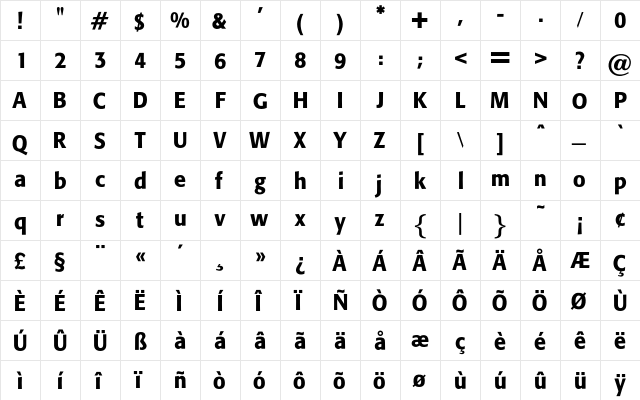
CartoonDemiBold Regular
Design Context for CartoonDemiBold Typeface
CartoonDemiBold trades formality for fun, with bouncy, characterful letterforms that bring warmth and energy to any project.
Font Pairing: Pairs well with a rounded or humanist sans for body copy, maintaining the friendly tone without relying on CartoonDemiBold to carry extended reading.
Pro Tip: Avoid using CartoonDemiBold for long passages of text — it works best for headlines, labels, and short calls to action.